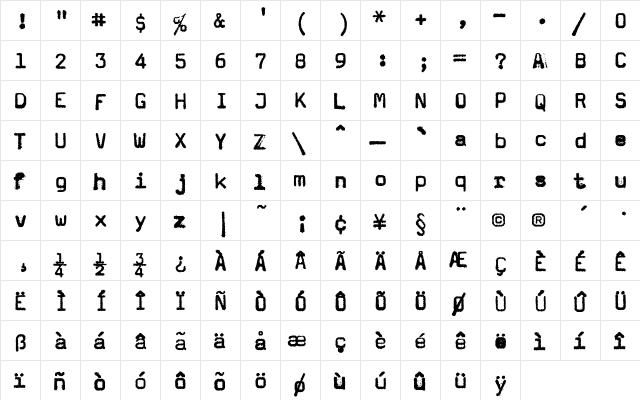
Magda Medium Font Preview
Magda Medium
Magda Medium Font Details
Design Context for Magda Typeface
Magda takes a measured approach to typography — its balanced proportions and neutral character make it a reliable workhorse for both digital and print work.